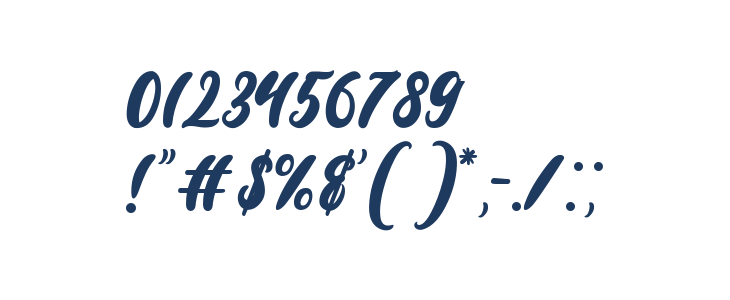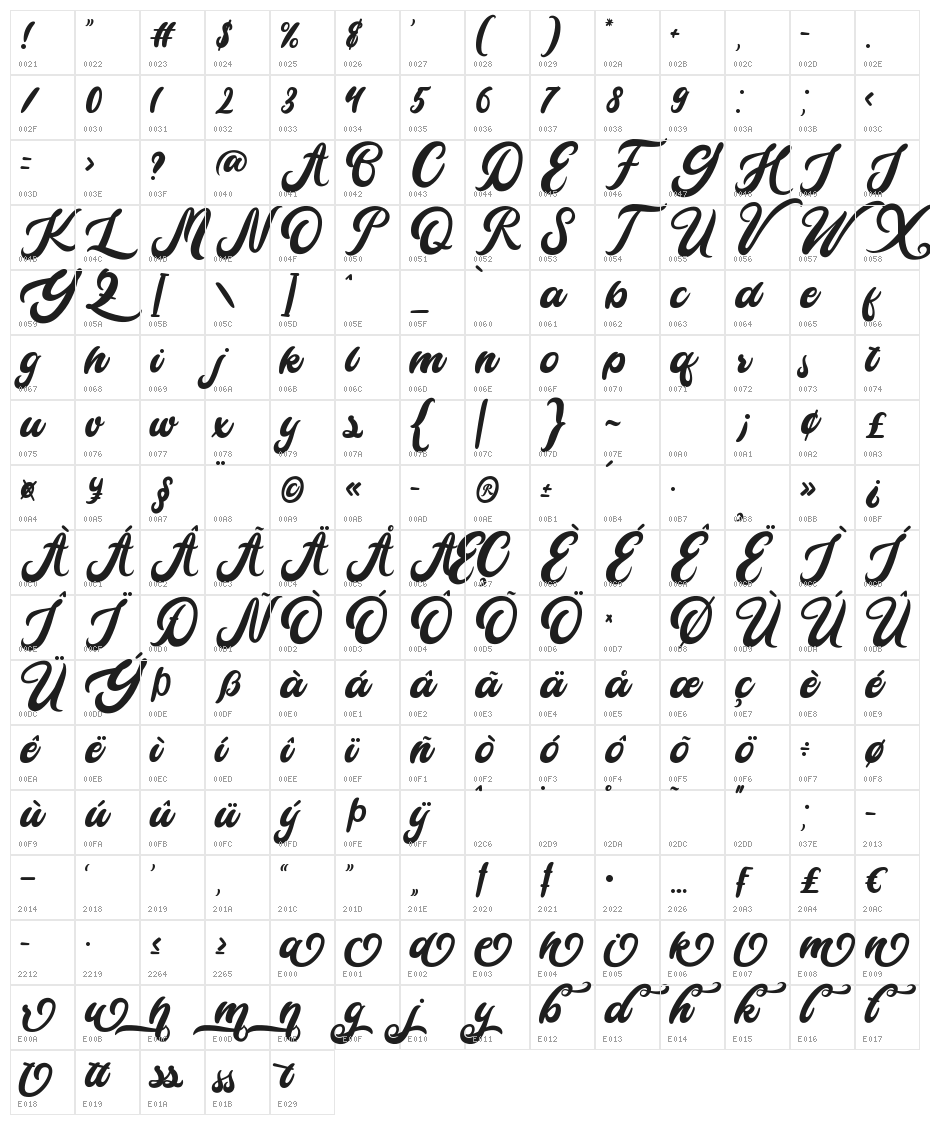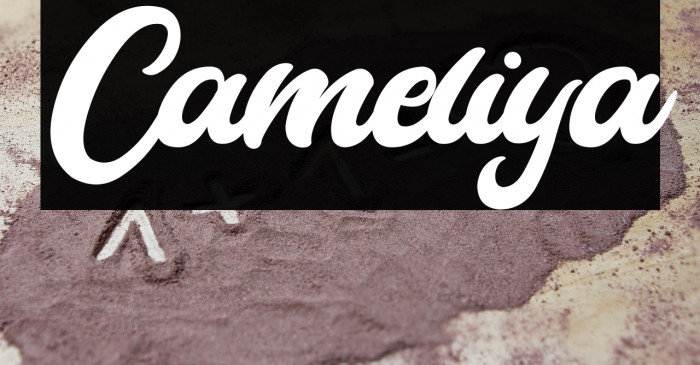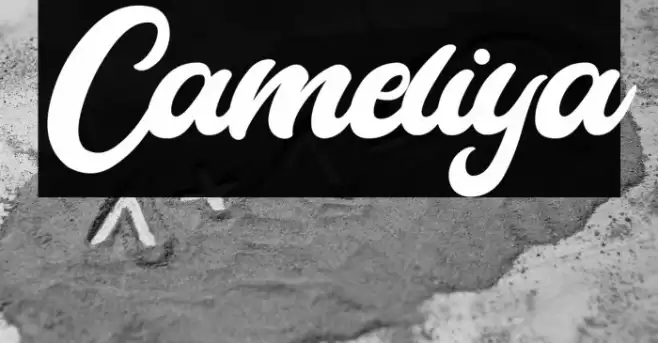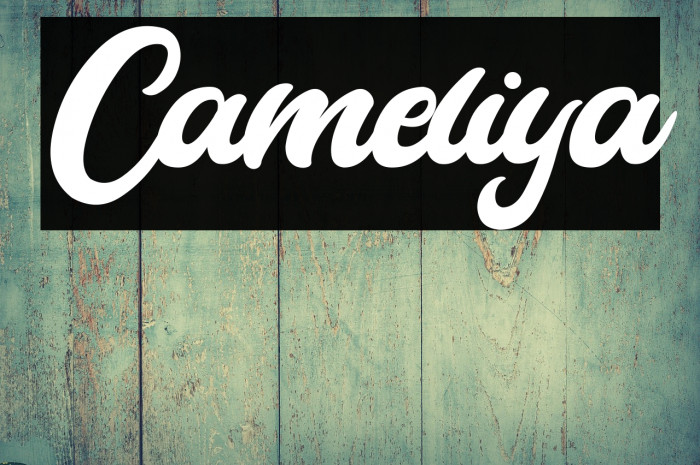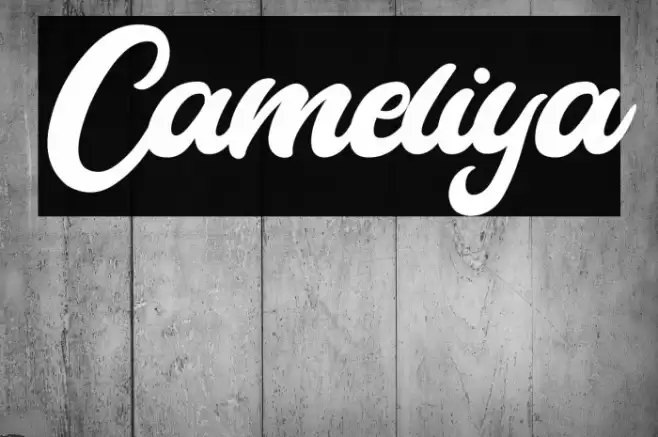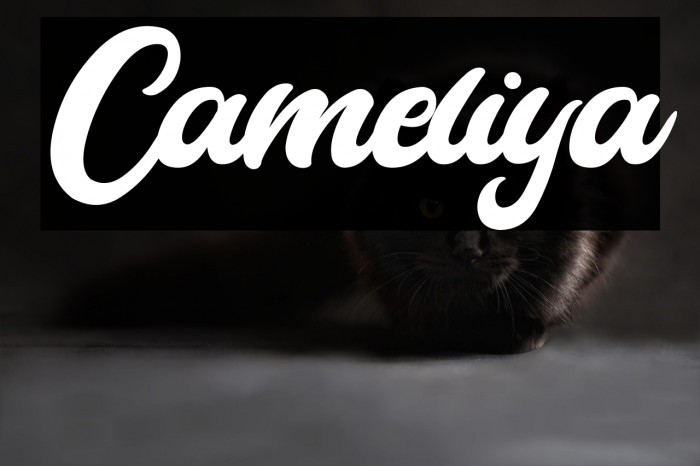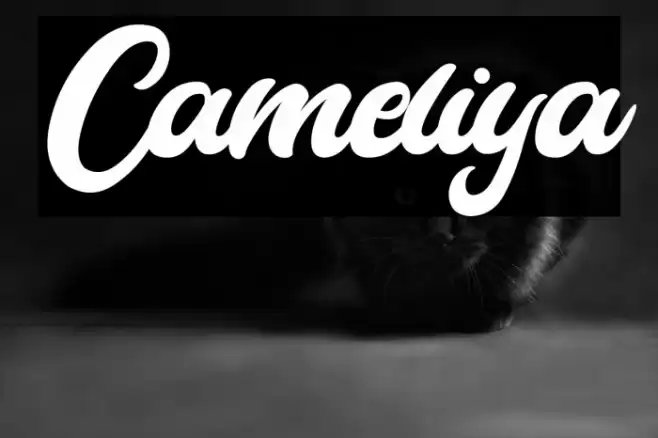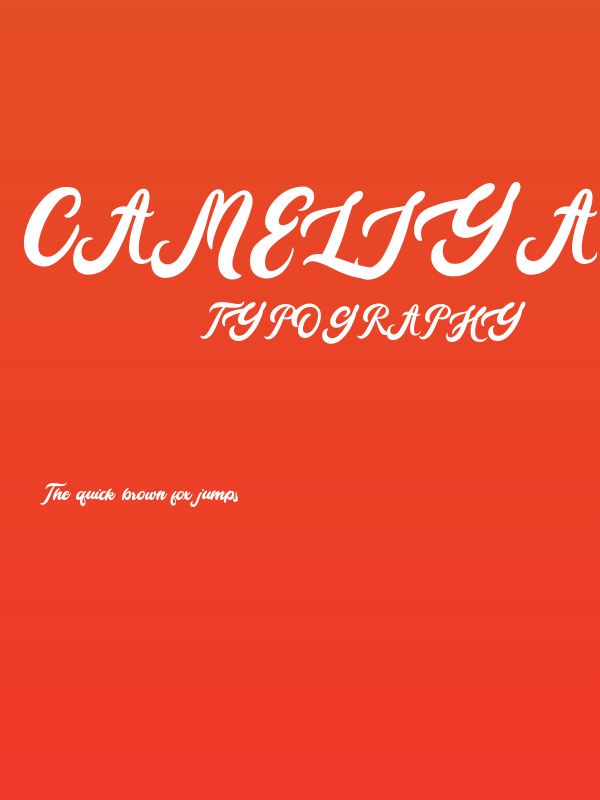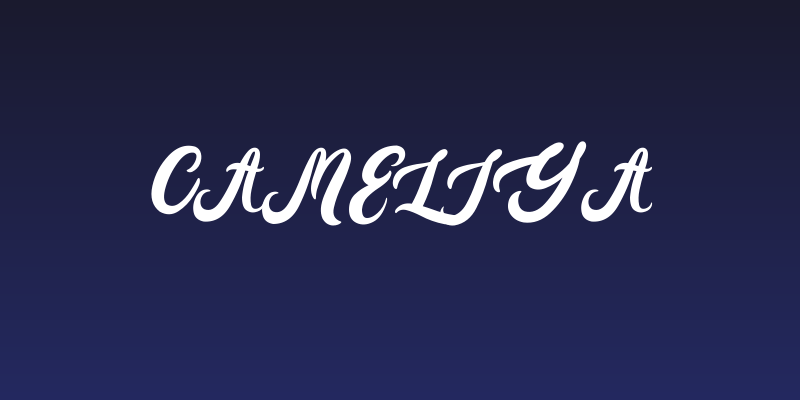
Cameliya Font
Cameliya Description
This font features a bold and flowing script style, characterized by its elegant and smooth curves. The uppercase letters are slightly more formal, with a consistent slant and rounded edges, while the lowercase letters maintain a playful and dynamic appearance. The numerals are well-integrated into the overall style, offering a cohesive look. Special characters are designed with the same fluidity, ensuring they blend seamlessly with the alphabet. This font exudes a sense of sophistication and creativity, making it ideal for projects that require a touch of elegance and flair.
| Overall Style | Elegant, Creative |
| Proposed Projects | Ideal for wedding invitations, branding, logo design, and elegant signage. |